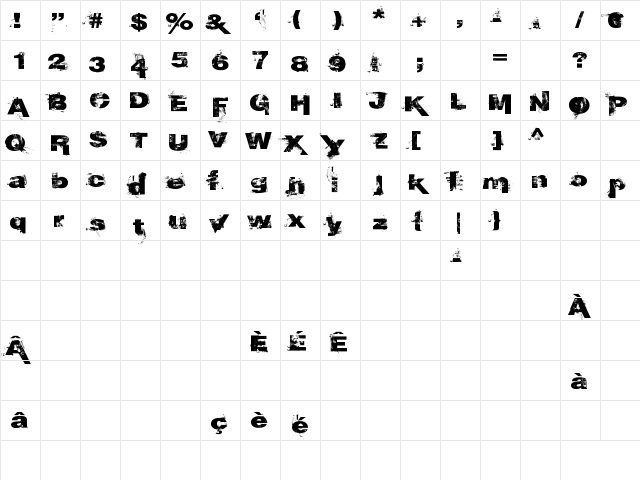
And then some Regular
Design Context for And then some Typeface
And then some is a composed and adaptable typeface that performs quietly and consistently across a wide range of design contexts.